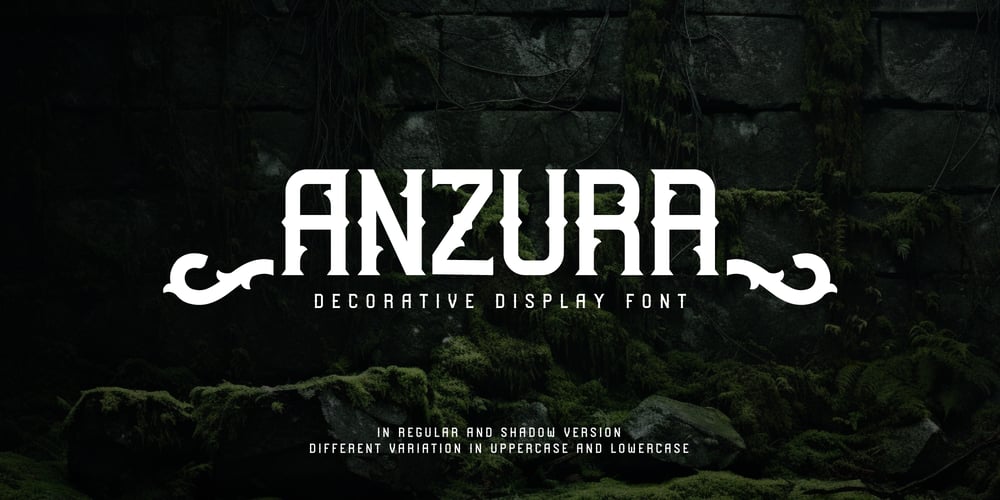
Anzura Font Family was designed by Agustian Eko Saputro, Aprilia Nurina Putri and published by Mightyfire. Anzura contains 2 styles and family package options. Anzura is a decorative font that can be used for book title, logo brand, poster and many more.The looks is vintage classic yet clean, with a little decoration on each letter.We have two styles, Anzura Regular and Anzura Shadow. Both are beautiful!Enjoy in cooking something creative with Anzura font! ๐